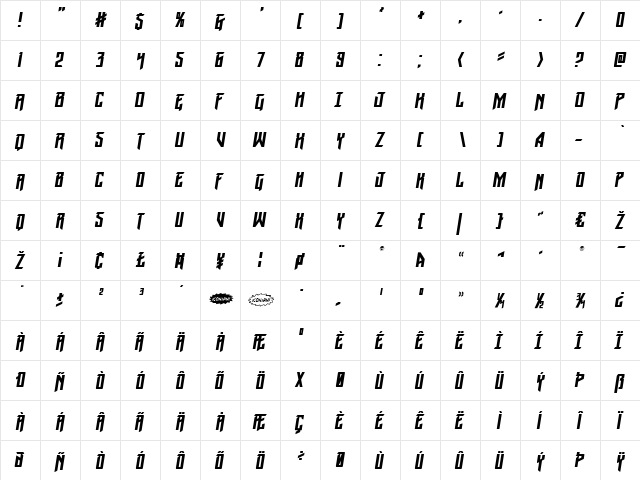
Winter Solstice Italic Italic
Design Context for Winter Solstice Italic Typeface
Winter Solstice Italic is a composed and adaptable typeface that performs quietly and consistently across a wide range of design contexts. Its italic angle brings a sense of urgency and motion to the letterforms.
Pro Tip: Use Winter Solstice Italic for emphasis, pull quotes, and subheadings where its slanted energy can add rhythm to the layout.